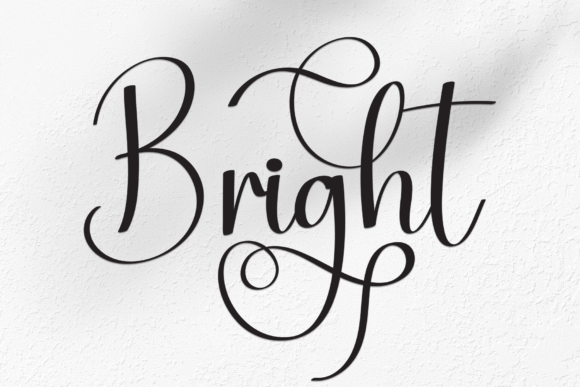
The Sweetness of Bright Font: A Designer’s Delight
I still remember the time I was working on a wedding invitation project, and I just couldn’t find the right font to capture the romantic and whimsical feel my client was looking for. I scoured through font libraries, but nothing seemed quite right. That was until I stumbled upon Bright Font – a sweet and delicate handwritten font that instantly won my heart. In this article, I’ll share my experience with Bright Font, its features, and how to make the most of it in your designs.
An Honest Review of Bright Font
What I Love About Bright Font ✨
- 💕 Delicate and dainty strokes that exude joy and romance
- 🎉 Perfect for wedding invitations, cards, and other designs that require a personalized touch
- 👍 Highly legible, even at small font sizes
- 💫 Beautifully crafted to add a touch of whimsy to any design
- ⚠️ Limited use for body text due to its delicate nature
- 🤔 May not be suitable for designs that require a bold or dramatic statement
A Practical Guide to Using Bright Font
- Experiment with OpenType features like ligatures and stylistic alternates to add more personality to your text
The Story Behind Bright Font
Bright Font was designed with love and care by a talented type designer who wanted to create a font that would capture the essence of romance and whimsy. Inspired by traditional handwriting and calligraphy, Bright Font is a beautiful example of modern typography.
Q: What is Bright Font best used for?
A: Bright Font is ideal for designs that require a romantic, personalized touch, such as wedding invitations, cards, and other creative projects.
Q: Is Bright Font suitable for body text?
A: No, Bright Font is not recommended for body text due to its delicate nature. It’s best used for headings, titles, and short paragraphs.